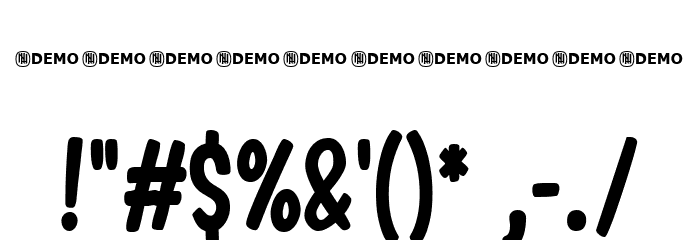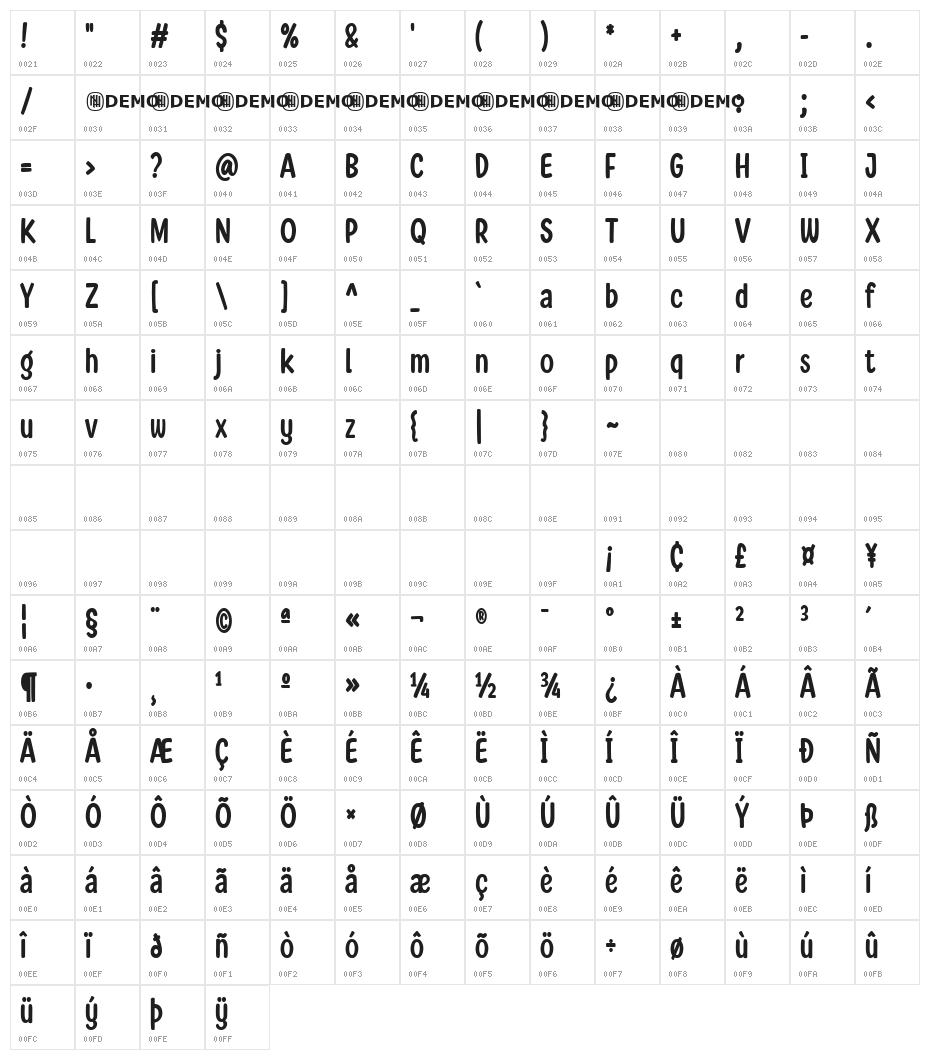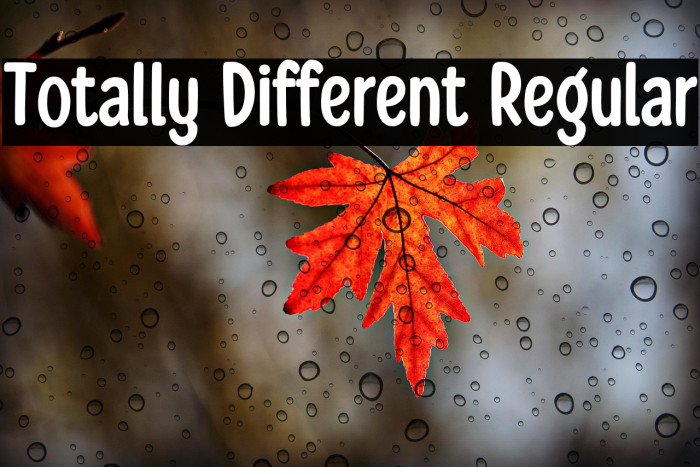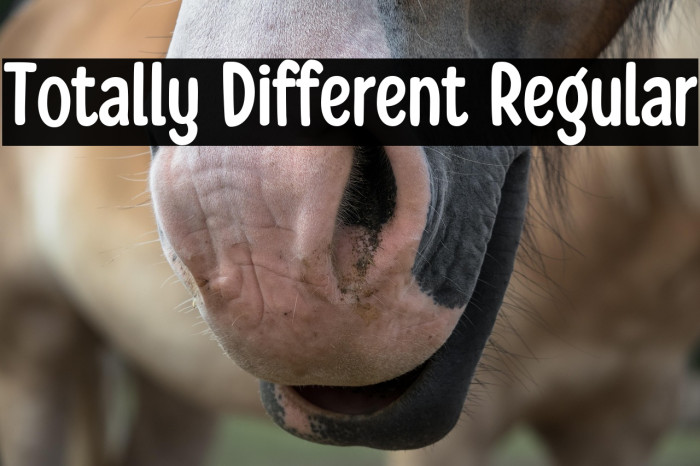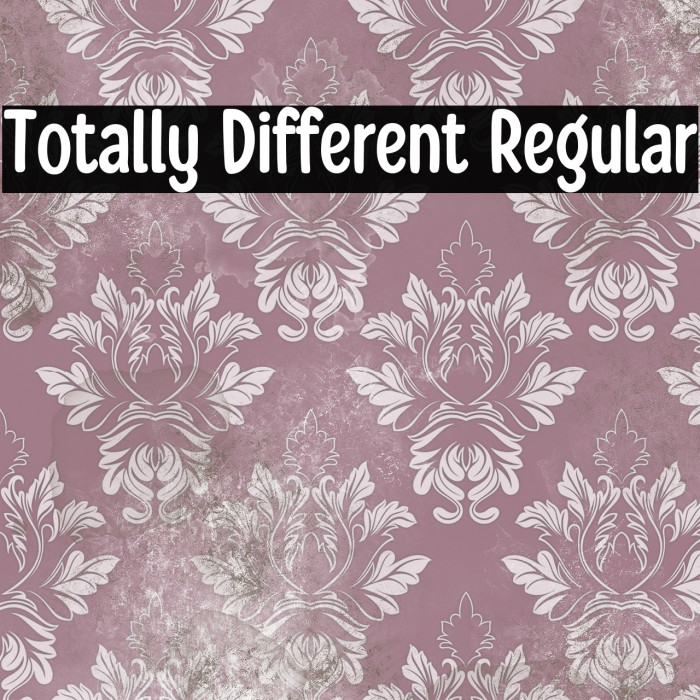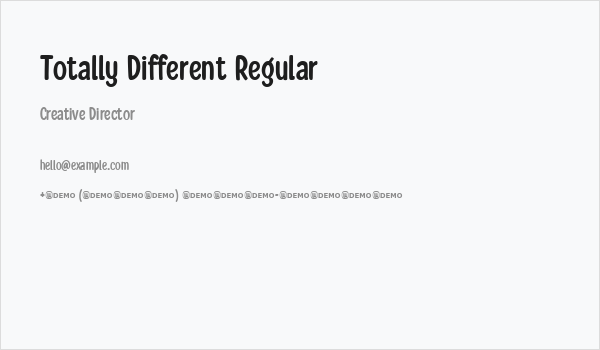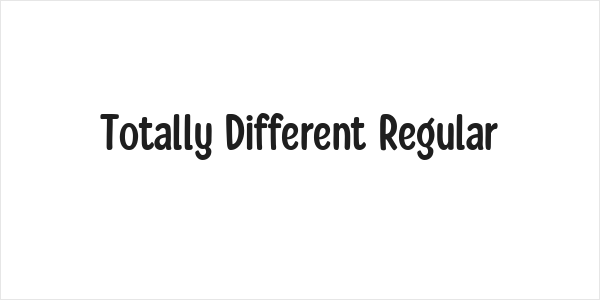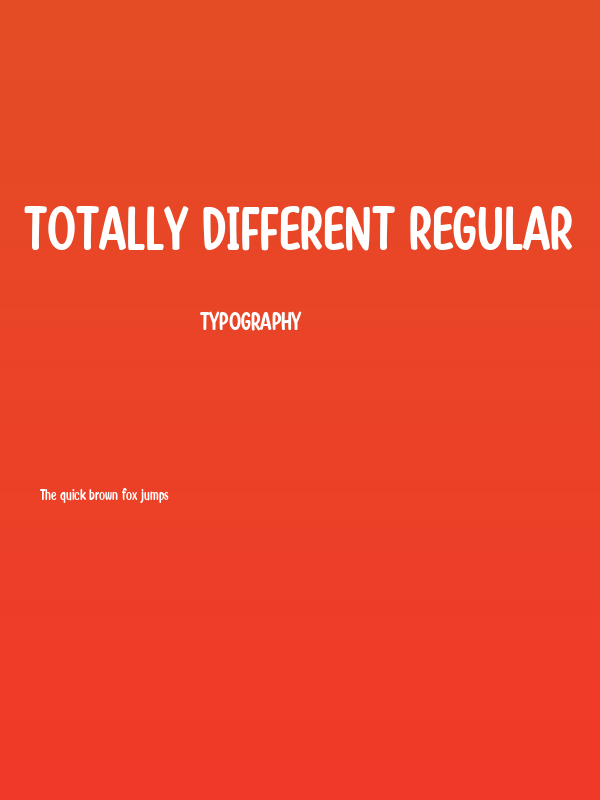
Totally Different Regular Font
This font features a playful and bold design with rounded edges, giving it a friendly and approachable appearance. The characters are slightly condensed, which adds to its unique style. The uppercase and lowercase letters maintain a consistent thickness, contributing to a harmonious look. The numerals and special characters are designed to match the overall aesthetic, ensuring a cohesive appearance across all text. This font is particularly suitable for projects that require a fun and informal touch, such as children's books, playful branding, or casual event invitations.
Overall StylePlayful
Proposed ProjectsIdeal for children's books, playful branding, casual event invitations, and fun social media graphics.